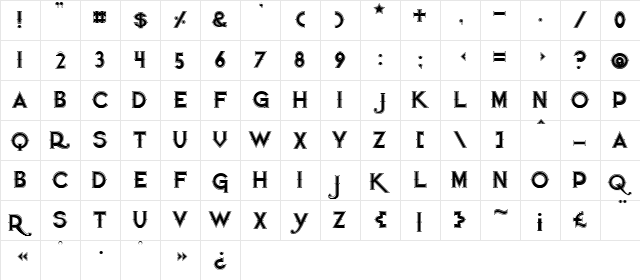
Quiet the Thief OutlinedWide
Design Context for Quiet the Thief Typeface
Quiet the Thief brings ornamental detail and strong personality to headlines and identities, where visual impact matters more than quiet functionality.
Font Pairing: Pair with a clean neutral sans-serif for body copy to let Quiet the Thief's character lead without overwhelming the composition.
Pro Tip: Treat Quiet the Thief as the centrepiece of your typographic hierarchy. One strong heading set in a decorative face can carry an entire layout.